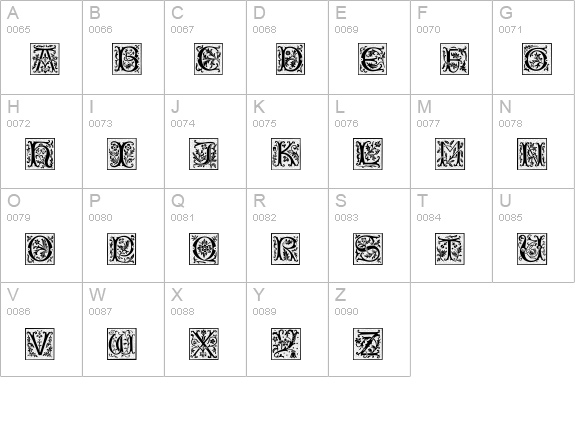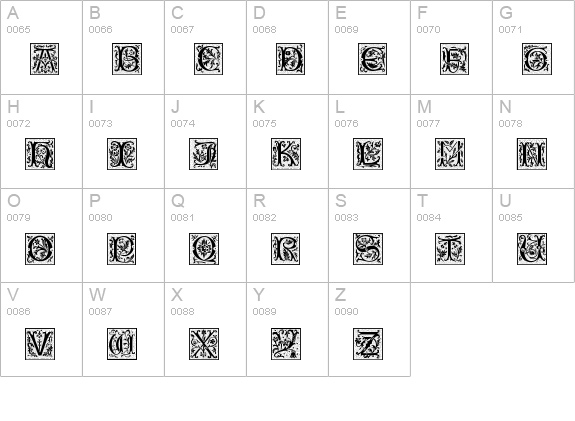
CamelotCaps Font Details
CamelotCaps font is a stunning display typeface that exudes elegance and sophistication. With its intricate details and graceful curves, CamelotCaps is perfect for adding a touch of class to any design project. This versatile font is ideal for headings, logos, invitations, and more. And the best part? CamelotCaps is completely free to download at FontsMarket.com. Whether you're a designer looking to elevate your work or someone simply looking to add a touch of luxury to your projects, CamelotCaps is the perfect choice. Download this exquisite font today and let your creativity soar with its timeless beauty.